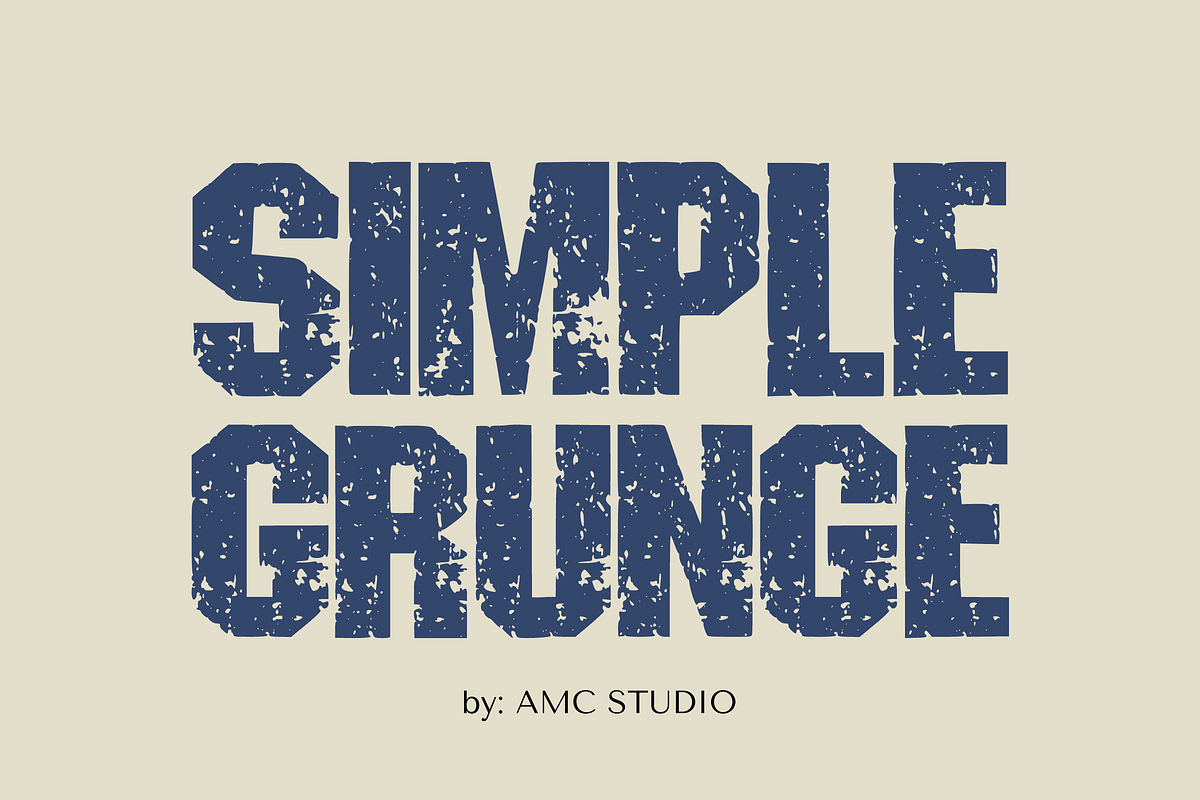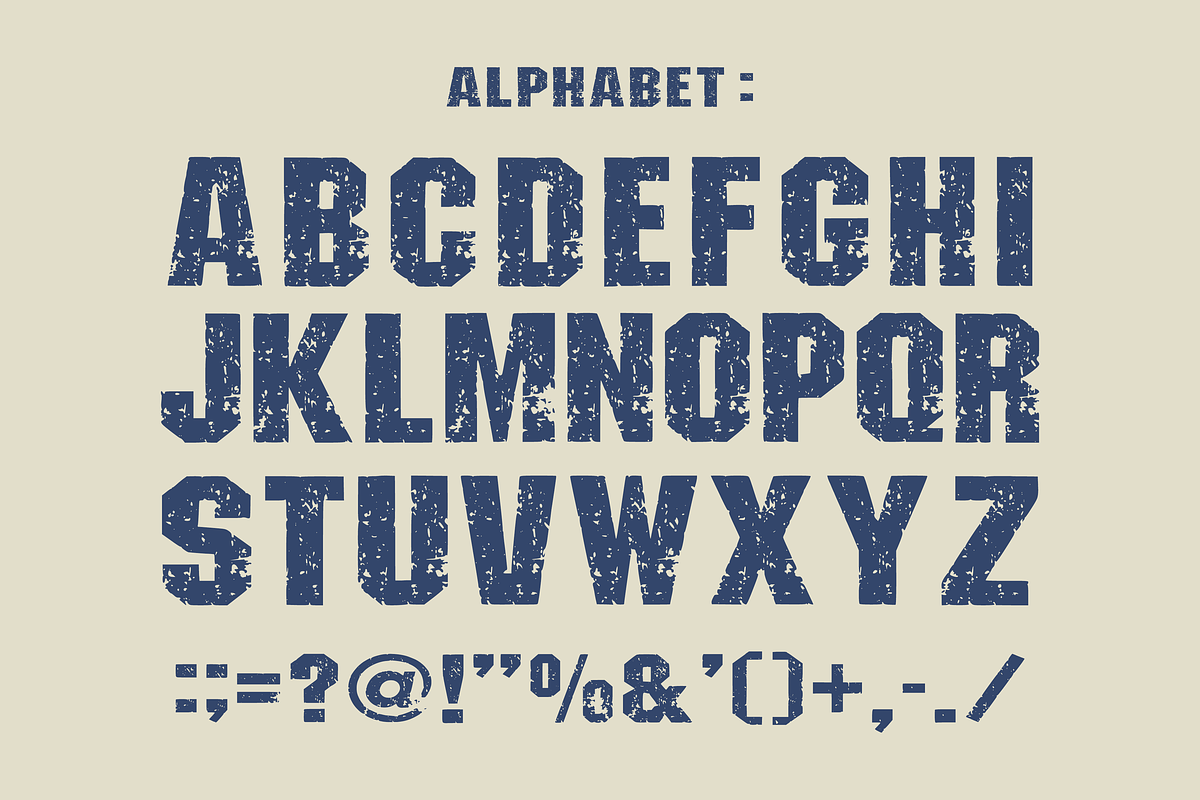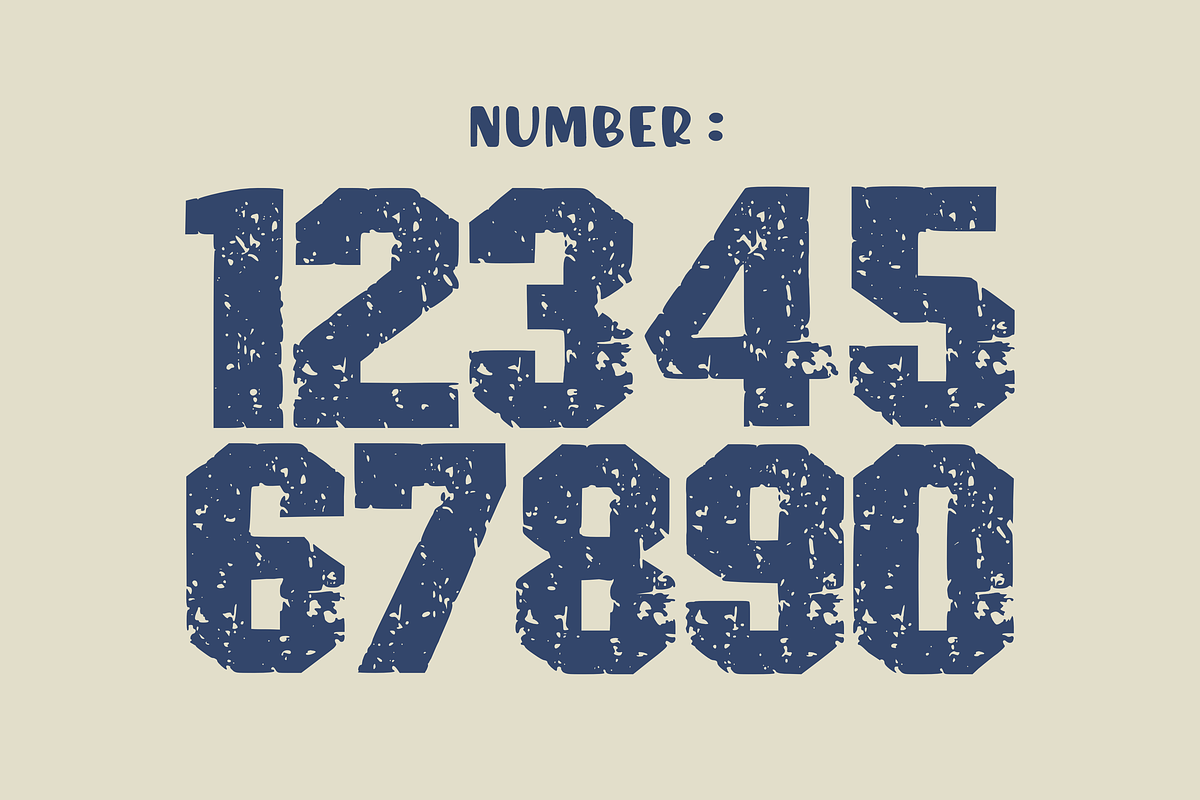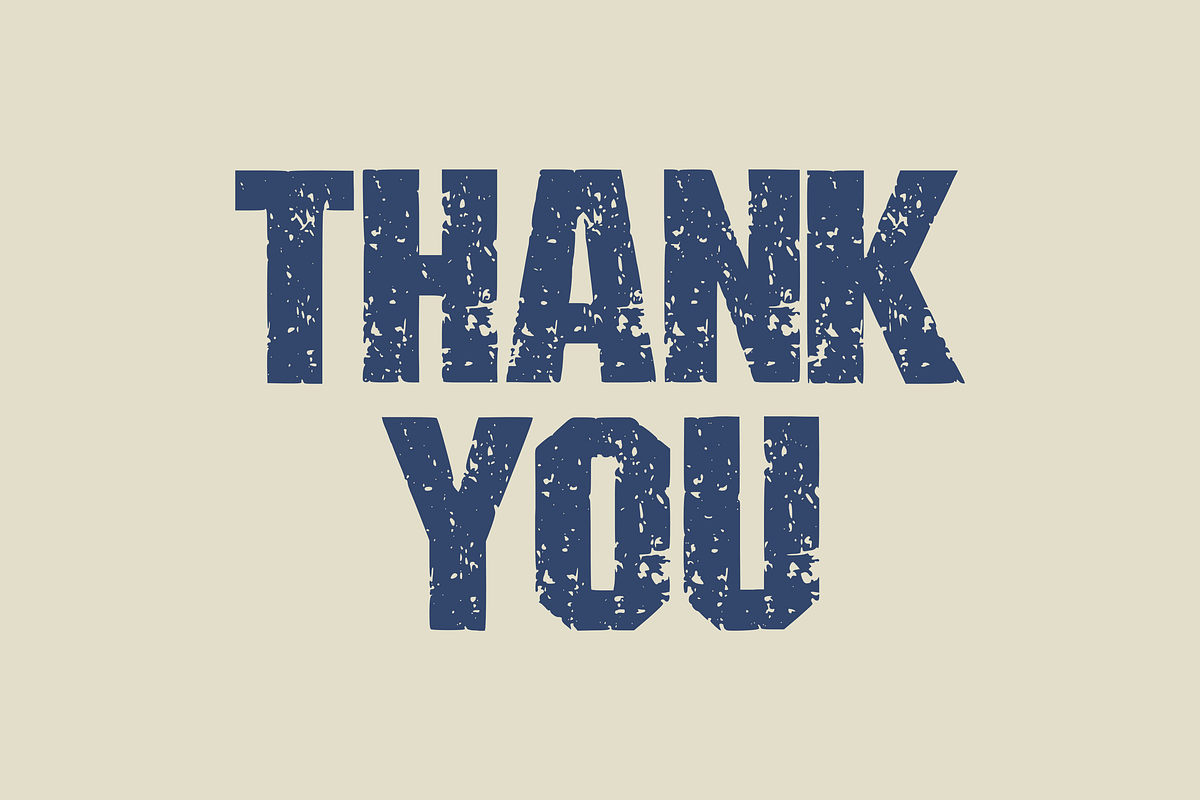
Simple Grunge - Grunge Font Types
Experience a linguistic metamorphosis with ‘Simple Grunge’, a sans-serif deity in the realm of typography. Renowned for its audacious yet unique persona, Simple Grunge transcends the mere definition of a font. Each line in this rugged canvas oozes an electrifying energy of defiance, aesthetics beautifully marred into a daring soul, showered with an audacious, raw texture. Emitting a fearless boldness twinned with a maverick charisma, Simple Grunge enhances projects that need to quench the thirst for impactful statement-making. Whether it’s rebellious poster graphics, defiant album covers, or distinctive urban-fashion branding, Simple Grunge is crafted as the face of nonconformity. Allow Simple Grunge to transform your design ethos, projecting your message with a force to be reckoned with.